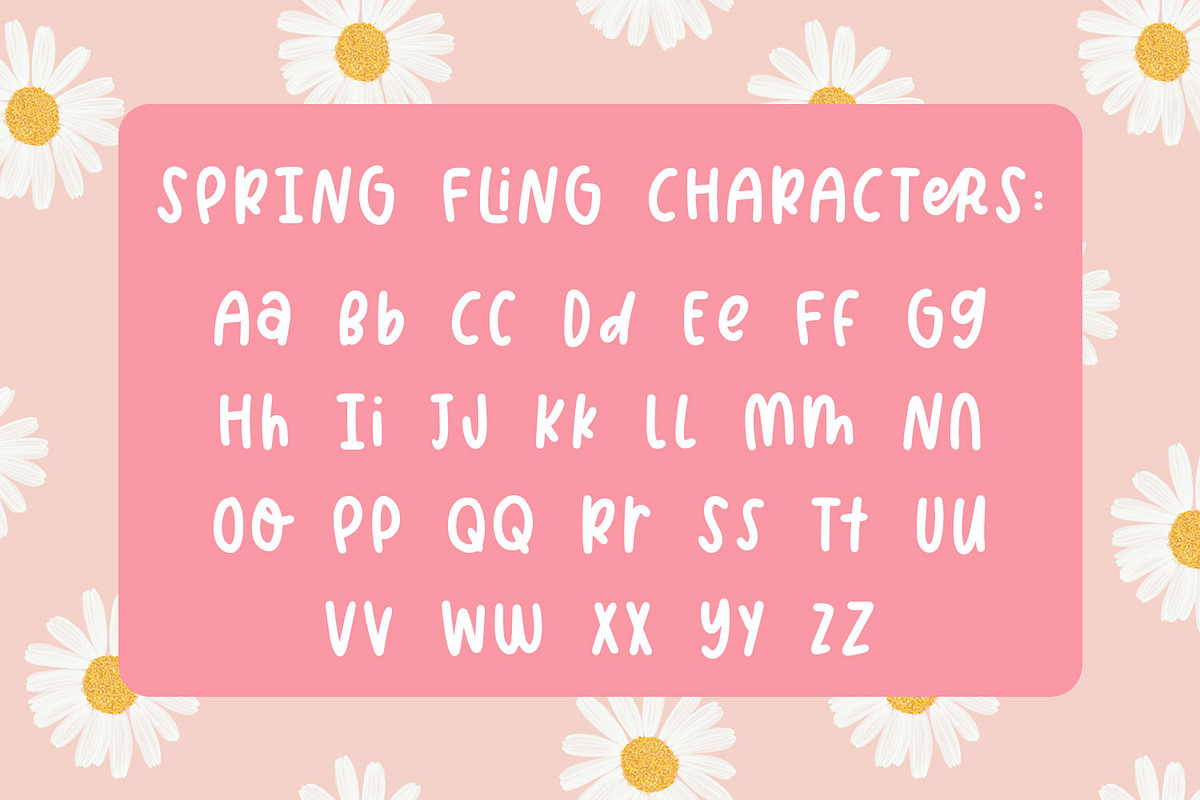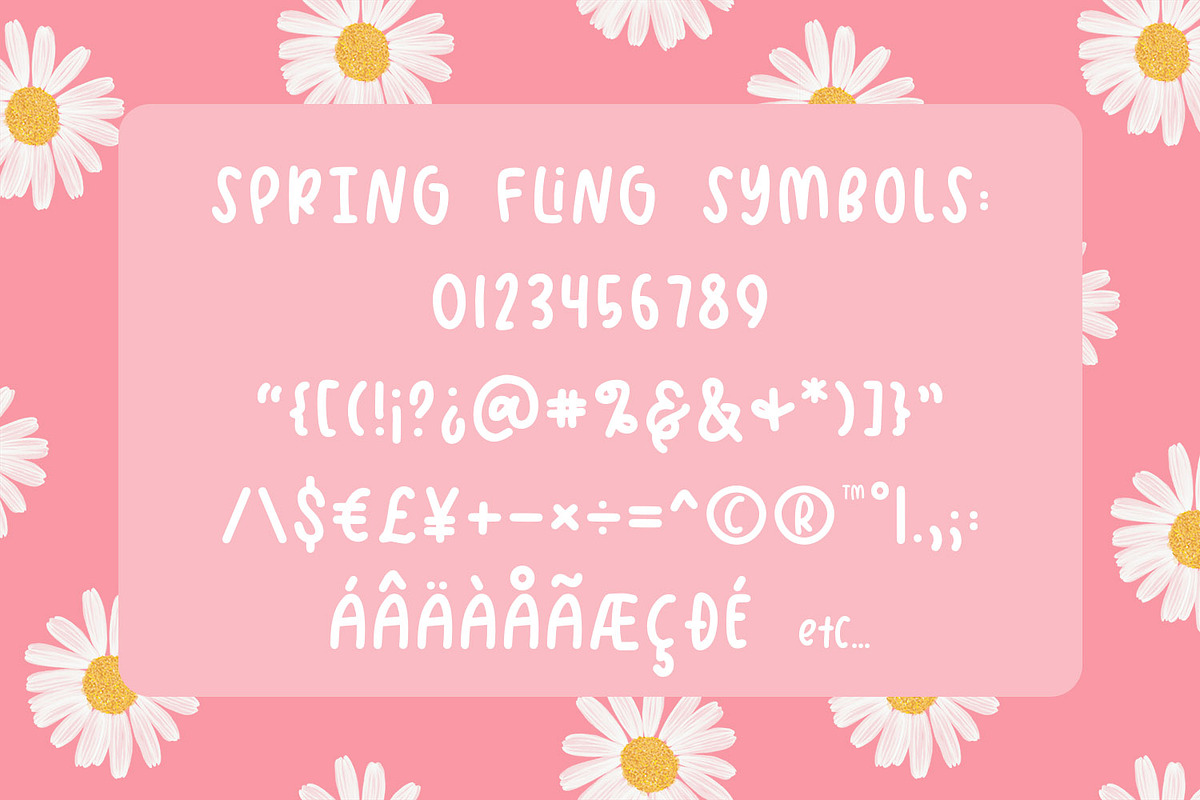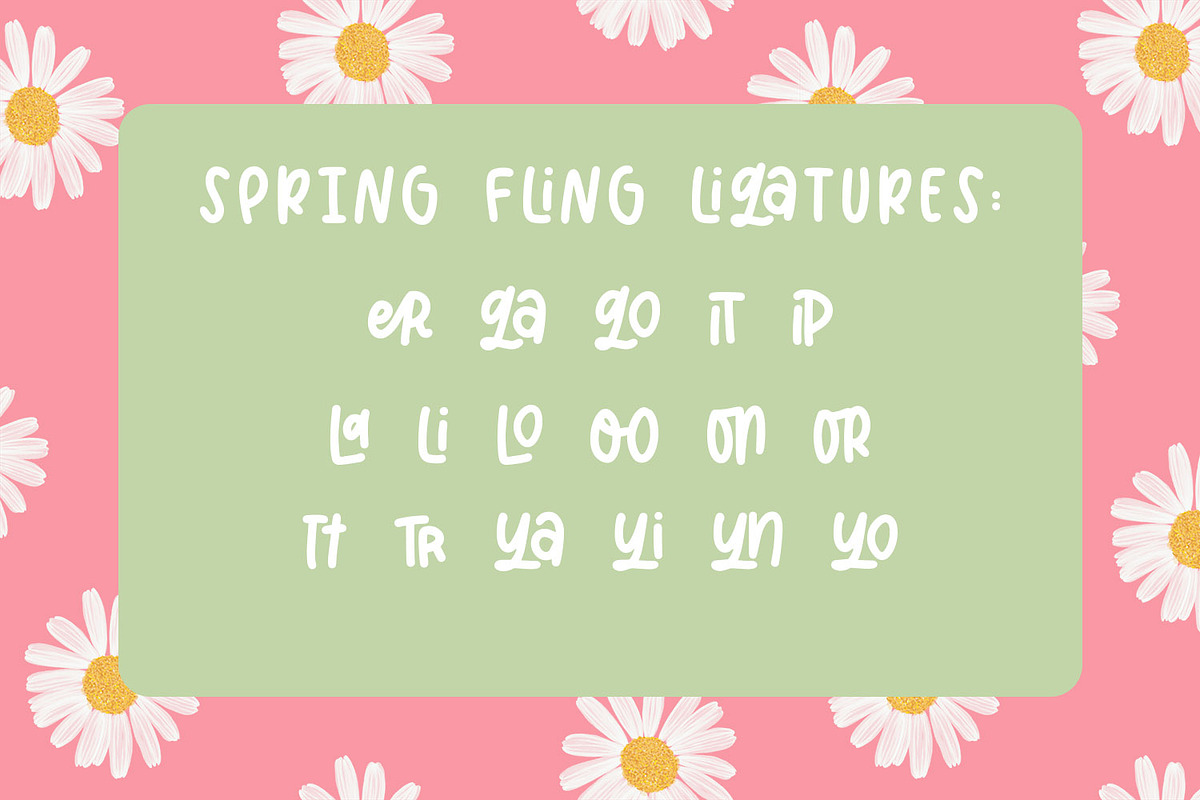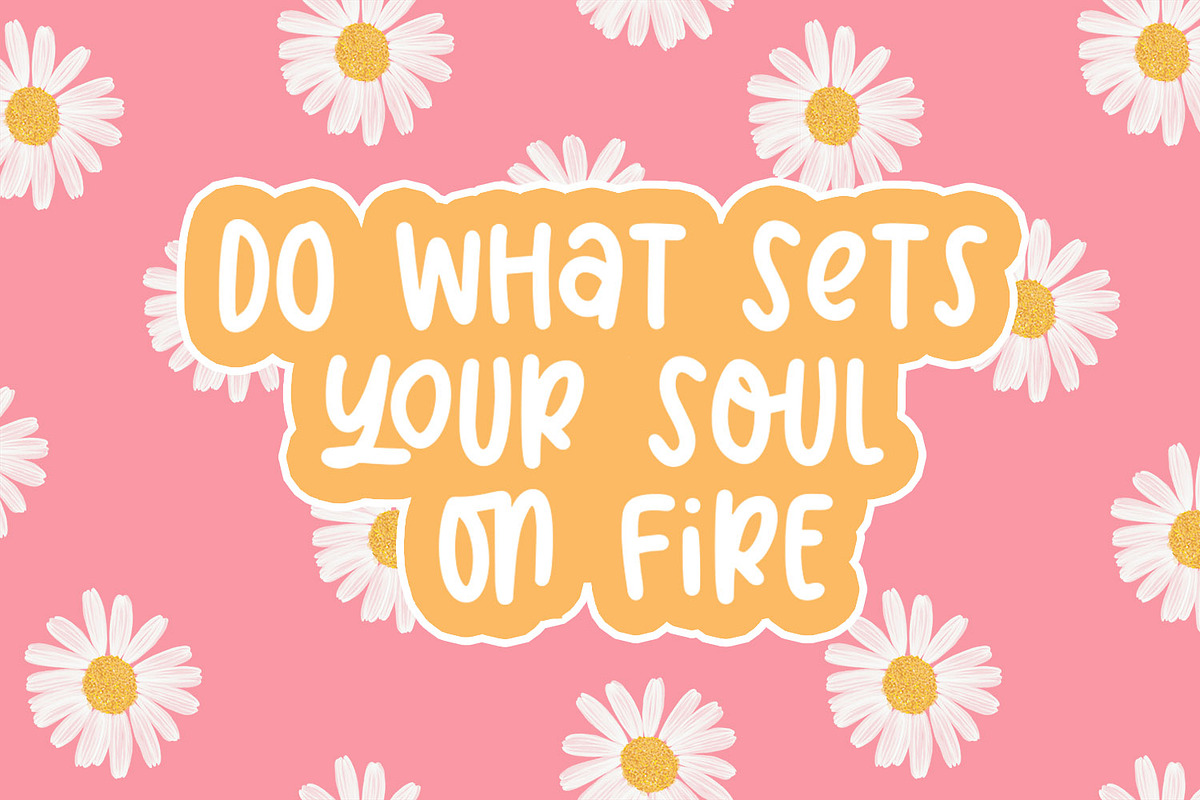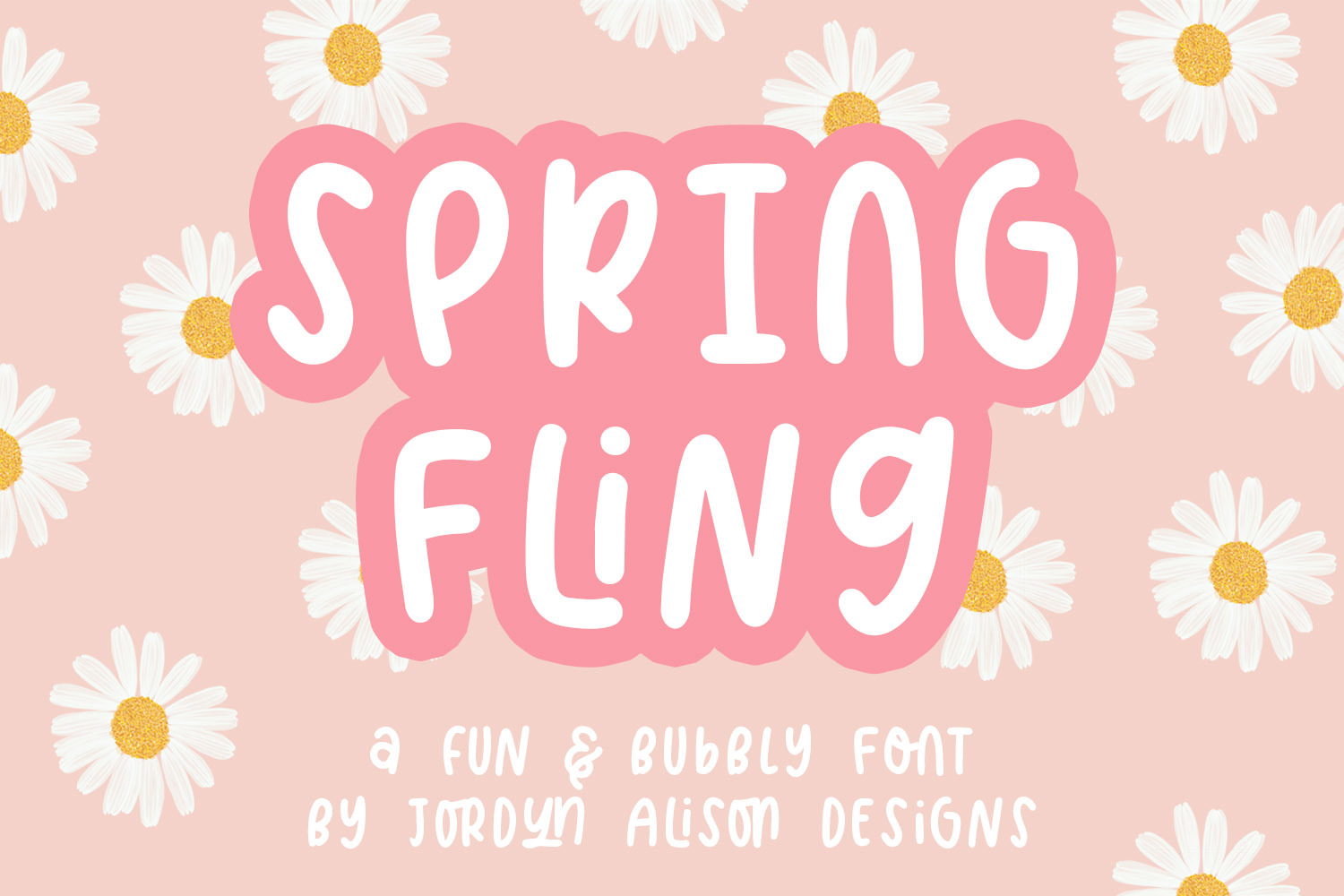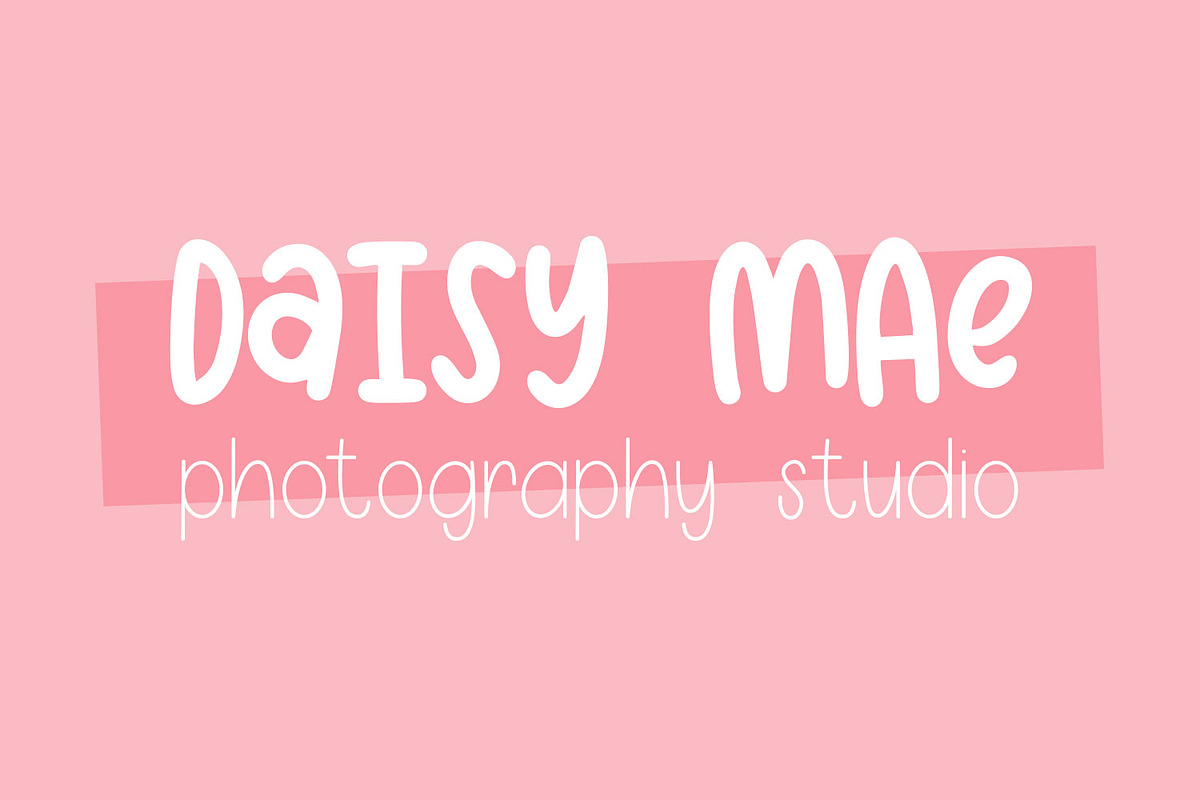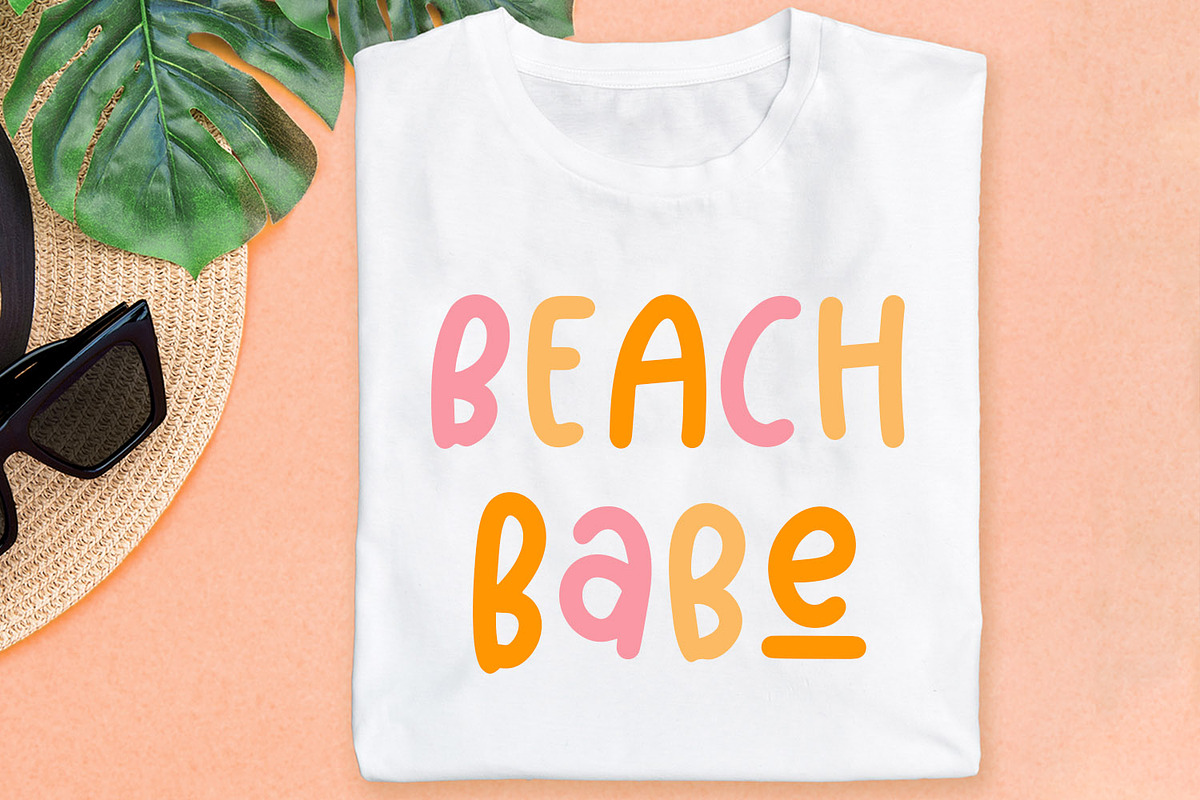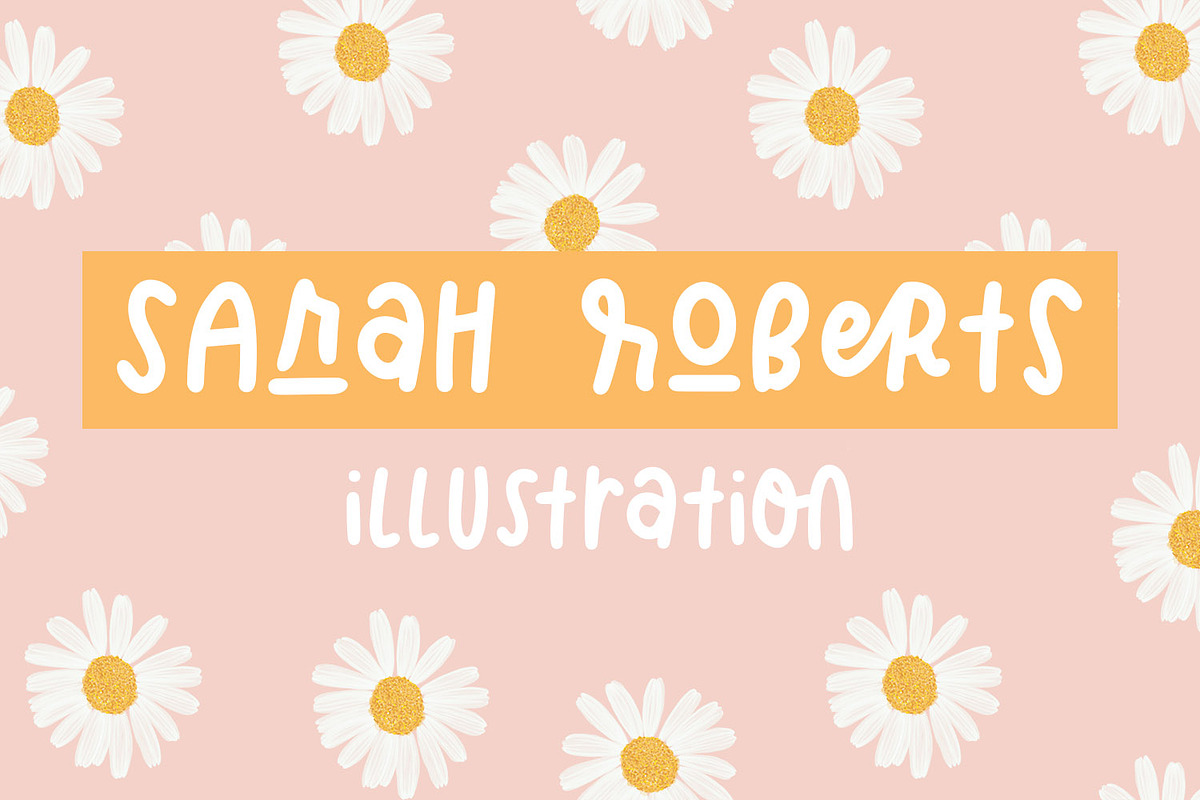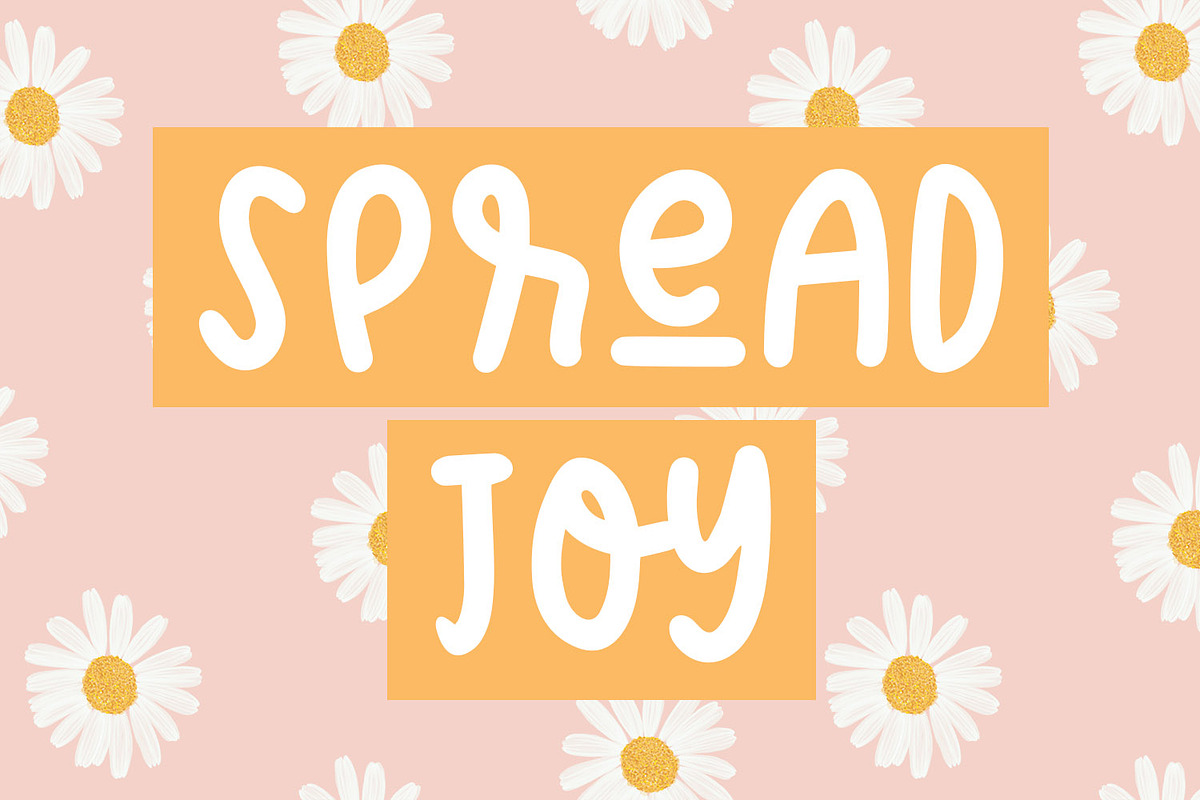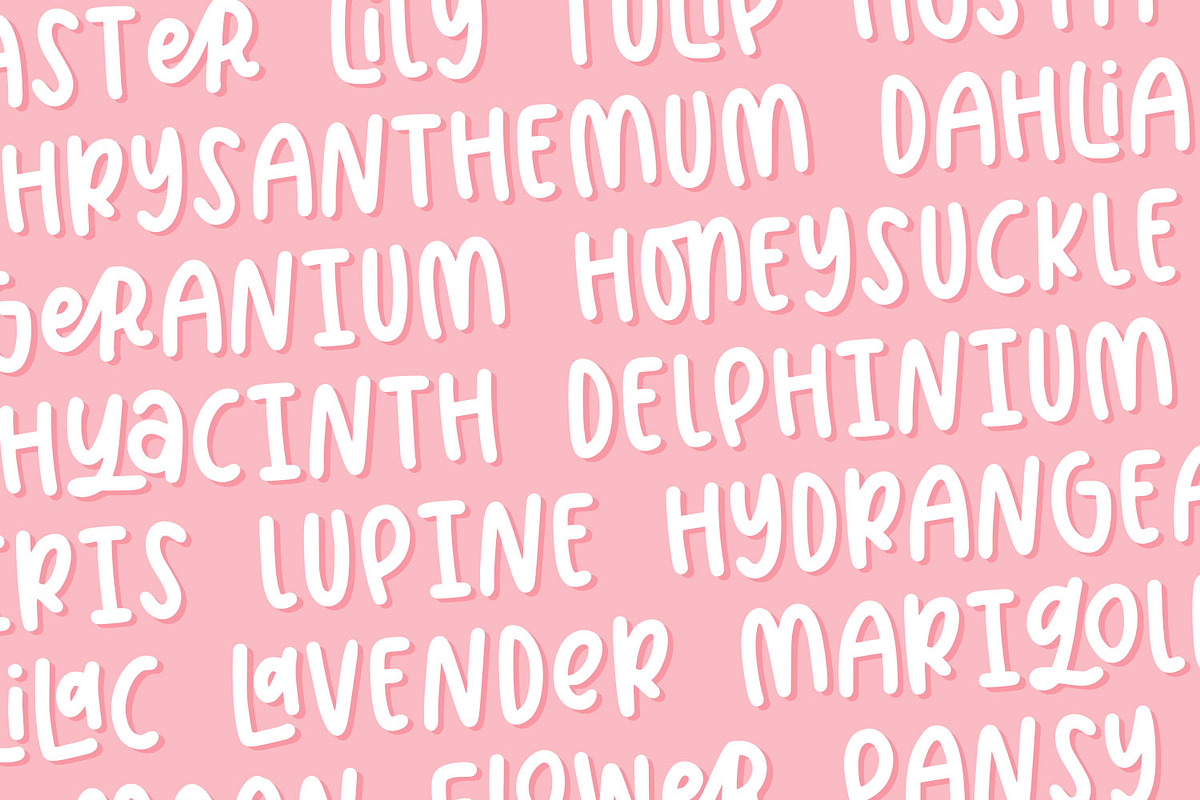
Spring Fling, Bubbly Sans Font
Introducing Spring Fling a fun and bubbly sans serif font!
- Full set of lowercase and uppercase letters
- Full set of symbols
- 17 Ligatuers
- 25 Alternate Characters